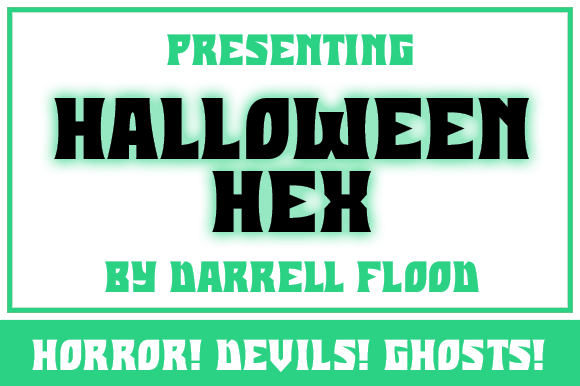
Unleash the Spookiness with Halloween Hex Font
Are you looking for a font that embodies the spirit of Halloween? Do you want to create eerie and captivating designs that will leave your audience shivering with delight? Look no further than the Halloween Hex Font, a bold, modern display font with a gothic twist that’s perfect for horror themes, vampire stories, and monster settings!
The Perfect Font for Horror Themes
Halloween Hex Font is a unique and terrifyingly awesome font that’s designed to add a touch of darkness and mystery to your designs. Its bold and modern style makes it perfect for creating eye-catching titles, headings, and posters that will grab the attention of horror fans and enthusiasts alike. Whether you’re designing a flyer for a haunted house, a book cover for a vampire novel, or a social media post for a spooky movie marathon, Halloween Hex Font is the perfect choice.
A Gothic Twist with a Modern Edge
What sets Halloween Hex Font apart from other gothic fonts is its modern edge. While it pays homage to traditional gothic typography, it also incorporates contemporary design elements that make it stand out from the crowd. The result is a font that’s both nostalgic and fresh, perfect for designers who want to create unique and memorable designs. With Halloween Hex Font, you can add a touch of gothic sophistication to your designs while still keeping them modern and relevant.
Halloween Hex Font is a versatile font that’s perfect for designers and crafters of all levels. Whether you’re a professional graphic designer or a DIY crafter, this font is easy to use and can be incorporated into a wide range of projects. Use it to create spooky signs, eerie invitations, or haunting artwork that will leave your audience spellbound. With Halloween Hex Font, you can unleash your creativity and bring your designs to life in a way that’s both fun and frightening!
Key Features of Halloween Hex Font
- Bold and modern display font: Halloween Hex Font is a statement font that’s designed to grab attention and make a lasting impression.
- Gothic twist: This font incorporates traditional gothic typography with modern design elements, making it perfect for horror themes and vampire stories.
- Perfect for horror themes: Whether you’re designing a haunted house flyer or a vampire novel cover, Halloween Hex Font is the perfect choice.
- Versatile: Use Halloween Hex Font to create spooky signs, eerie invitations, or haunting artwork that will leave your audience spellbound.
Tips for Using Halloween Hex Font
Here are a few tips for using Halloween Hex Font to create spooky and captivating designs:
- Experiment with different colors: Halloween Hex Font looks great in bold, bright colors like orange, purple, and black.
- Use it sparingly: While Halloween Hex Font is a bold font, it can be overwhelming if used too much. Use it sparingly to create emphasis and add visual interest to your designs.
- Pair it with other fonts: Halloween Hex Font looks great when paired with other fonts, such as sans-serif fonts or script fonts.
- Have fun: The most important thing is to have fun and be creative! Halloween Hex Font is a versatile font that can be used in a wide range of projects, so don’t be afraid to experiment and try new things.
In conclusion, Halloween Hex Font is a bold, modern display font with a gothic twist that’s perfect for horror themes, vampire stories, and monster settings. Its unique and terrifyingly awesome design makes it a must-have for designers and crafters who want to create spooky and captivating designs. With its versatility, ease of use, and modern edge, Halloween Hex Font is the perfect choice for anyone looking to add a touch of darkness and mystery to their designs. So why wait? Download Halloween Hex Font today and unleash the spookiness!